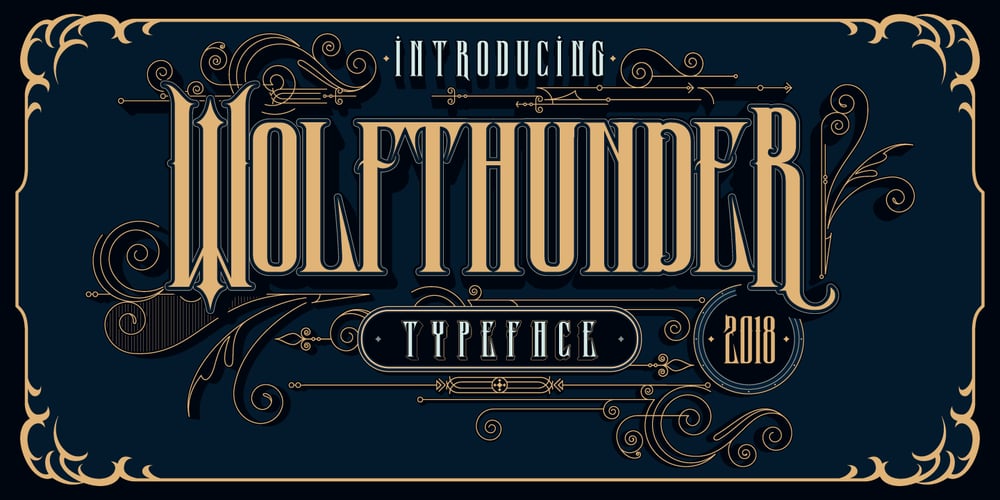
Wolfthunder Font Family was designed by Deni Dessastra and published by the-sastra. Wolfthunder contains 1 styles and family package options. Introducing a new Display font called Wolfthunder.Wolfthunder typeface display font is perfect for badges, branding, labels, apparel, headlines, signage, logo, quote, apparel and other creative applications.For any help regarding this file, please feel free to contact me.Thank you